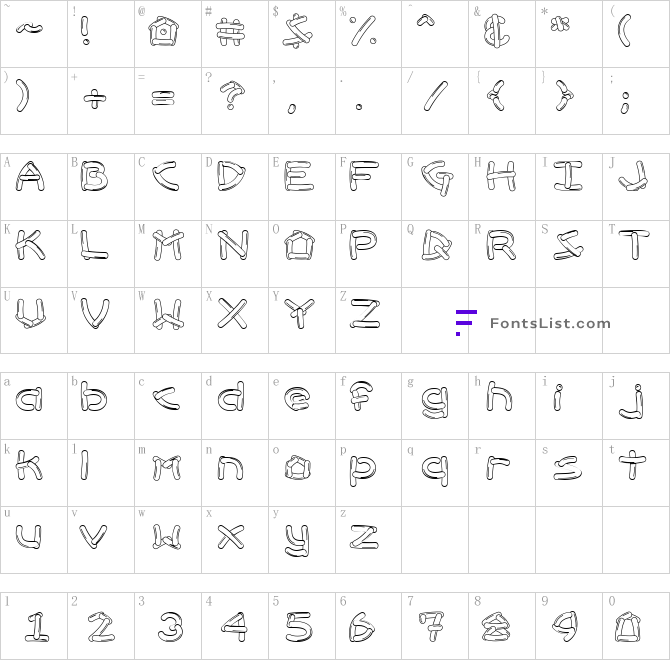
• Font Name:Accent Hotdog
• Full Name:Accent Hotdog
Accent-Hotdog.ttf is a very beautiful artistic font, Accent-Hotdog.ttf is widely used in the design and printing of various books and pictures,Accent-Hotdog.ttf has a strong visual impact,Accent-Hotdog.ttf is a commonly used font in newspapers, magazines and books, and is used in posters, e-commerce Poster design, store design, logo design, font design and other fields.Accent-Hotdog.